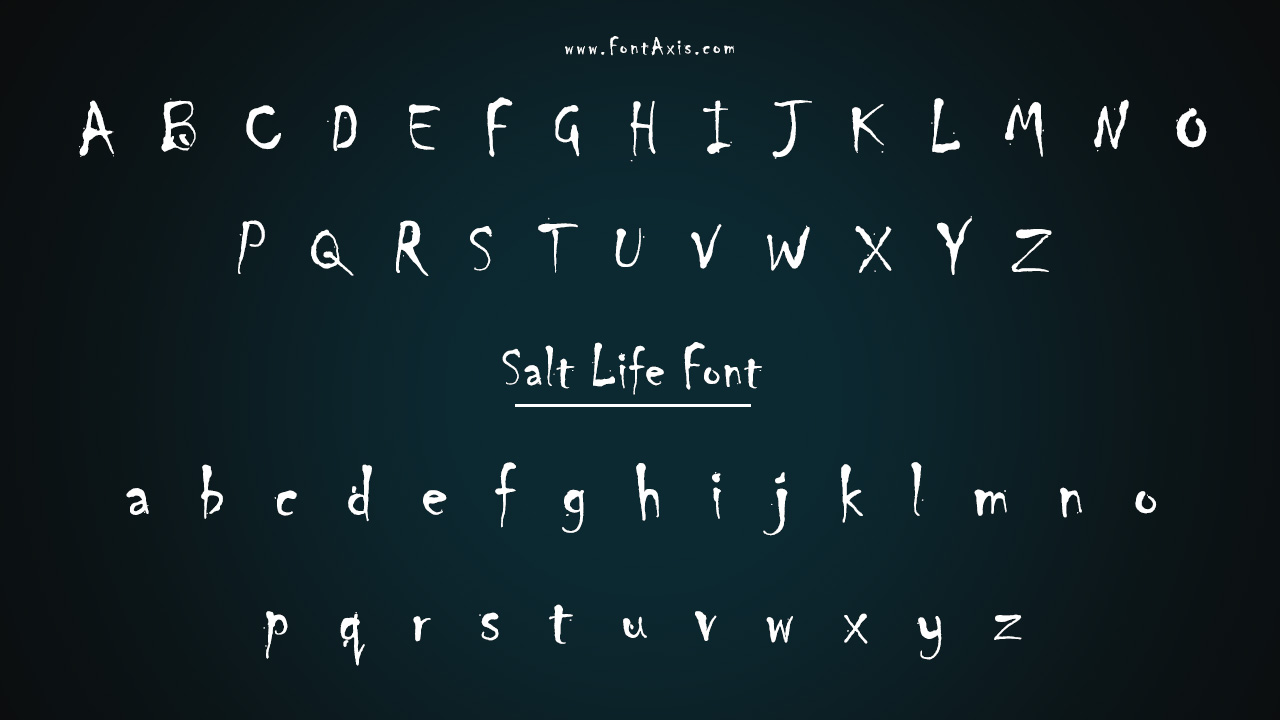
The Salt Life Font is an elegant and eye-catching typeface designed by British font designer Andrew Smith. Released in 2000, this unique font is inspired by the branding of the Salt Life brand, known for water-related sports like surfing and fishing.
The font family closely resembles the Chiller Font Family, making it an ideal choice for logos, tattoos, and creative designs. It offers a clean yet bold look that’s perfect for any personal project related to fishing, surfing, or water sports clothes.
Salt Life Font Information In Chart
| Name | Salt Life Font |
| Style | Display, Logo |
| Designer | Andrew Smith |
Salt Life Font Family Includes
- Salt Life Regular
- Salt Life Italic
- Salt Life Bold
- Salt Life Bold Italic
- Salt Life Light Italic
Where Salt Life Font Is In Use
- Logo Designs for water-related sports clothing brands
- Tattoos and stickers, often found in adventurous designs
- Branding for companies involved in surfing and fishing
- Posters, advertisements, and other promotional marketing materials
- Personal projects, including invitations and greeting cards
- Website headers for outdoor and water sports-related businesses
- Sunday Nightmare Font: Pair with this for an edgy, adventurous style.
- Historia Font: A clean and modern sans-serif, complementing the boldness of Salt Life.
The Salt Life Font is the perfect font for anyone looking to create a bold, adventurous, and clean design for their water-related sports clothes brand or personal projects.
With its bold yet elegant style, it’s a fantastic choice for branding, logos, and even tattoos. Whether you are a designer working on a fishing or surfing brand or someone seeking a unique font for a personal project, Salt Life brings an attractive and professional edge to your designs.
2.Who Designed The Salt Life Font?
The Salt Life Font was designed by Andrew Smith, a British font designer known for his creative and bold typefaces. The font embodies a coastal and adventurous lifestyle, making it popular among ocean and water-sport enthusiasts. Smith’s design showcases a perfect balance of rugged and clean letterforms, reflecting the adventurous spirit of the Salt Life brand.
3.Can I Use Salt Life Font For Tattoos?
Yes, the Salt Life Font is widely used in the tattoo industry because of its bold and adventurous aesthetic. Its unique and flowing letterforms make it ideal for designing tattoos that evoke themes of the ocean, adventure, or coastal living. Whether looking for a rugged or stylish look, this font works well for creating personalized tattoo designs.
4.Is Salt Life Font Available For Web Design?
5.How Can I Use Salt Life Font In My Designs?
The Salt Life Font is versatile and can be used in various creative projects. It’s ideal for logo designs for water sports or coastal lifestyles businesses. Use it in posters, stickers, or branding materials to capture an adventurous spirit. The font also complements apparel designs, making it popular for T-shirts and hats with a seaside vibe.